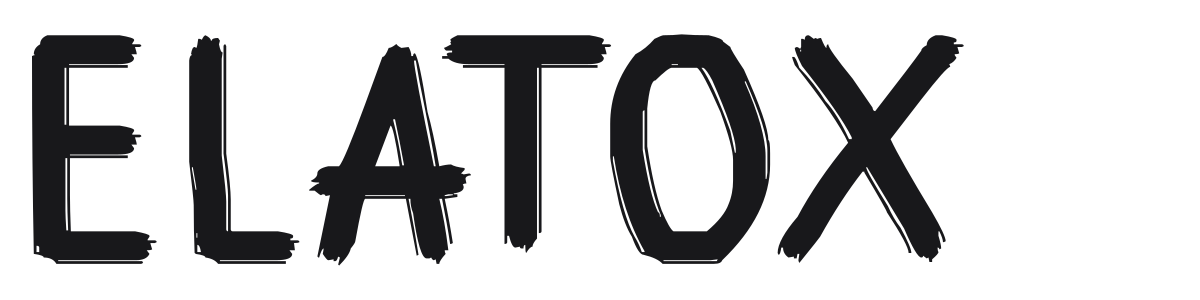
Elatox
Elatox is a bold distressed sans with rough, brush-scraped edges that make every character look hand-inked and worn. The underlying structure is a wide, heavy grotesque, but the heavy texture pushes it firmly into raw, street-ready territory. It works at large sizes where the grit reads clearly and adds energy to headlines, posters, and music branding.